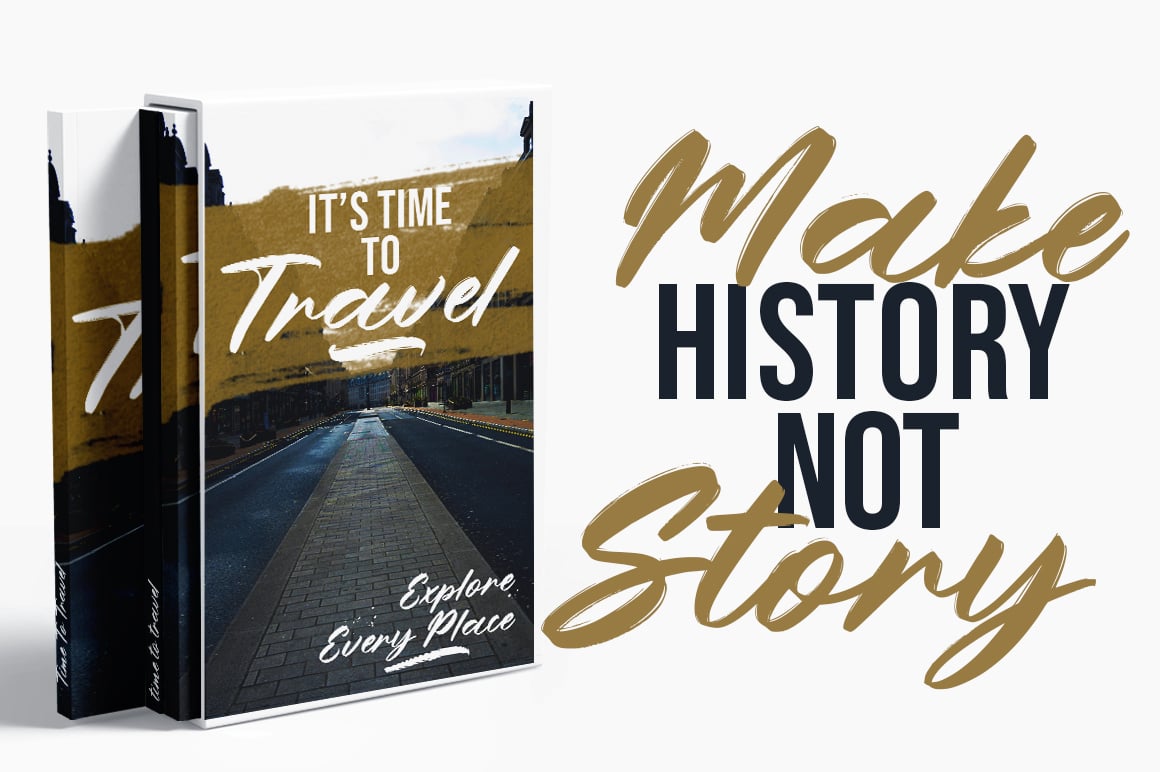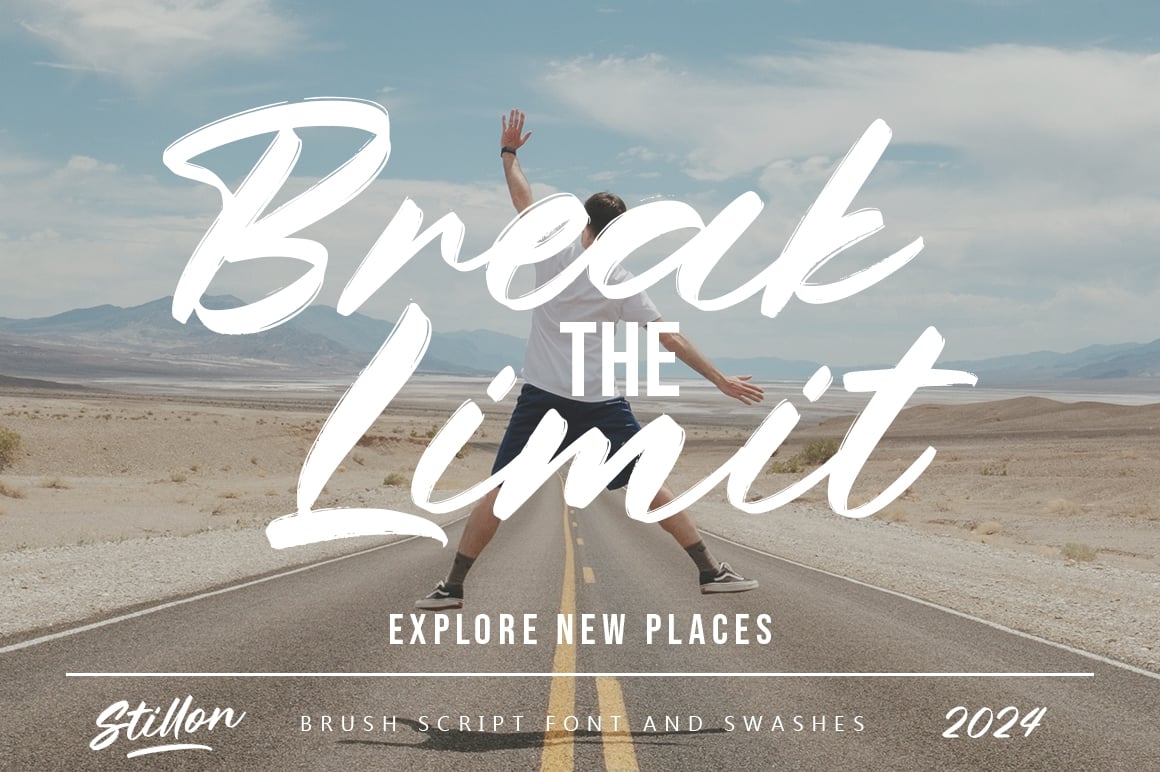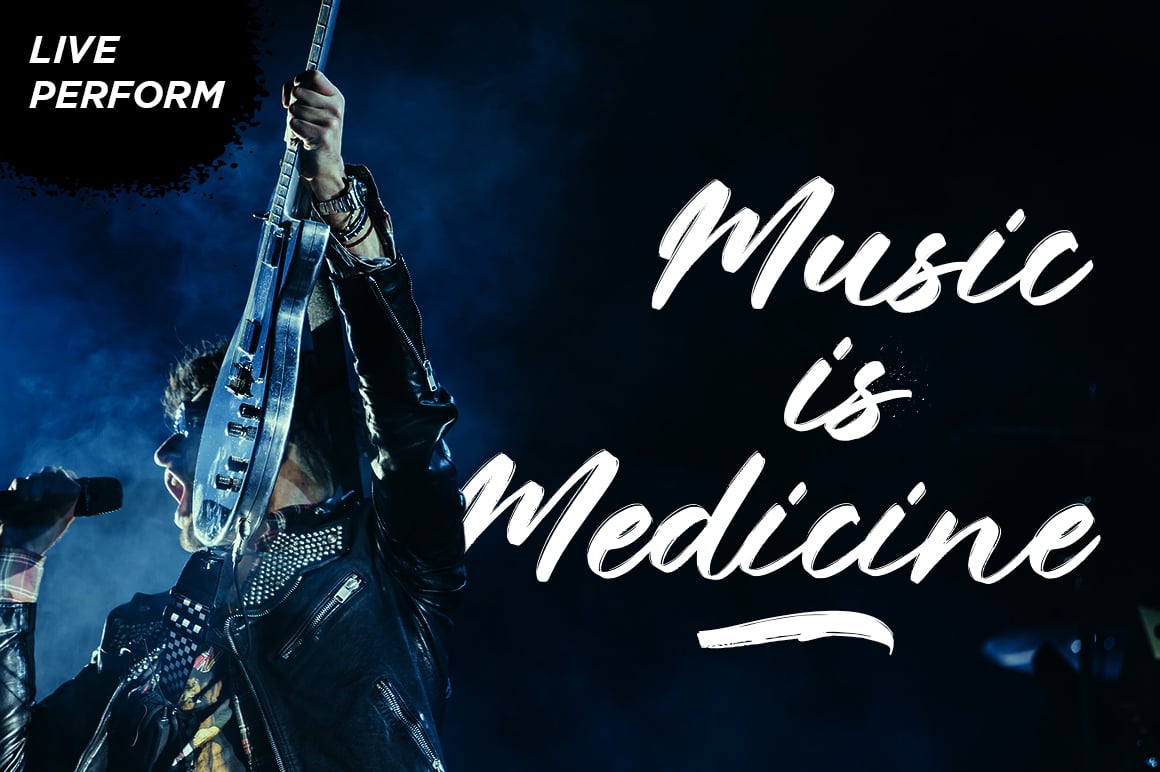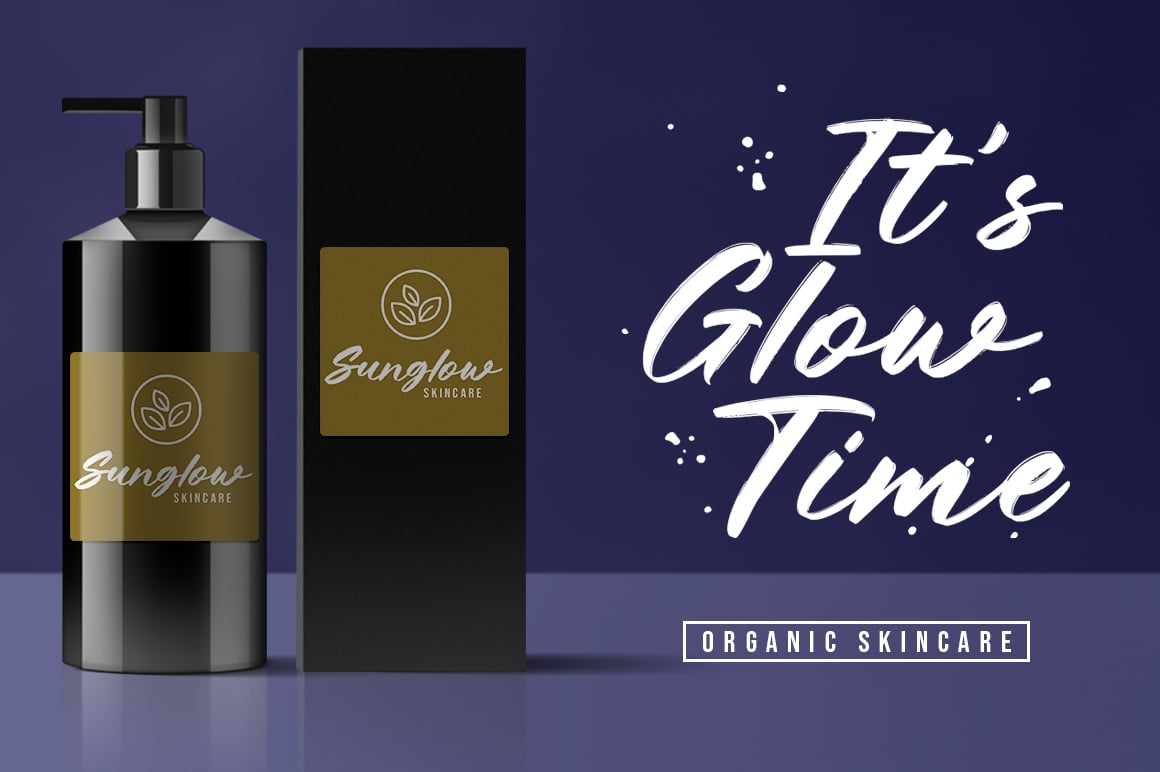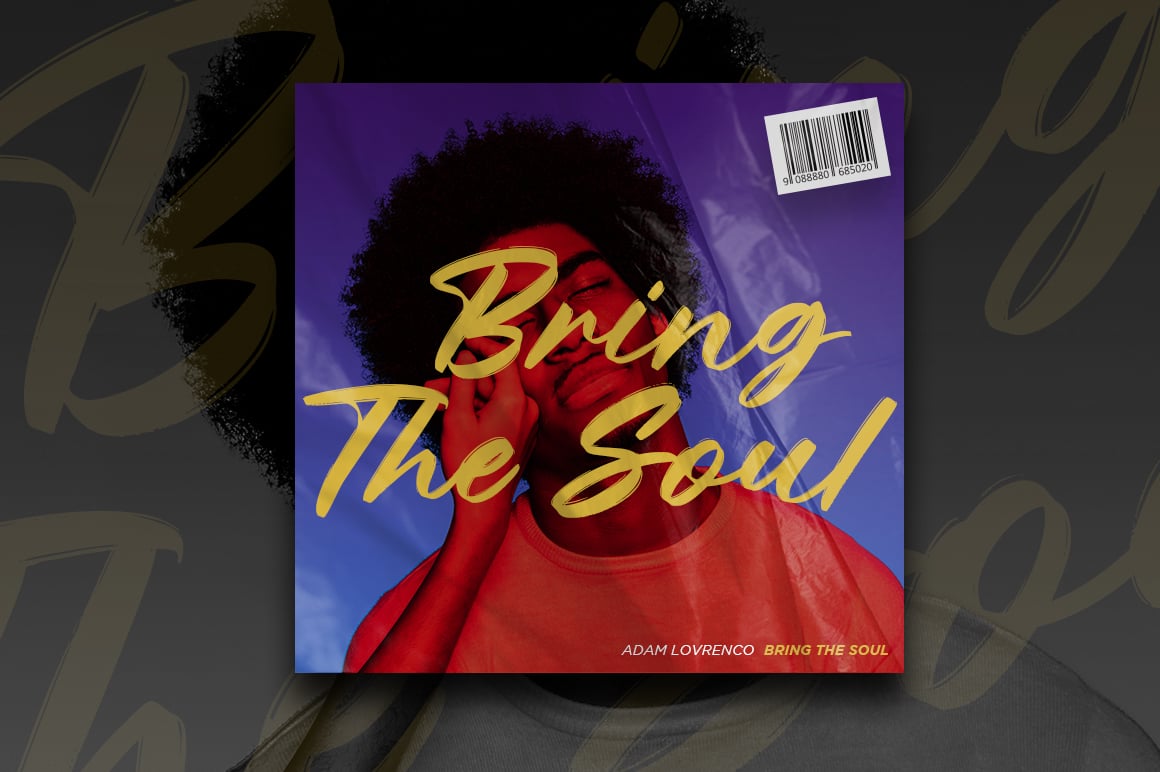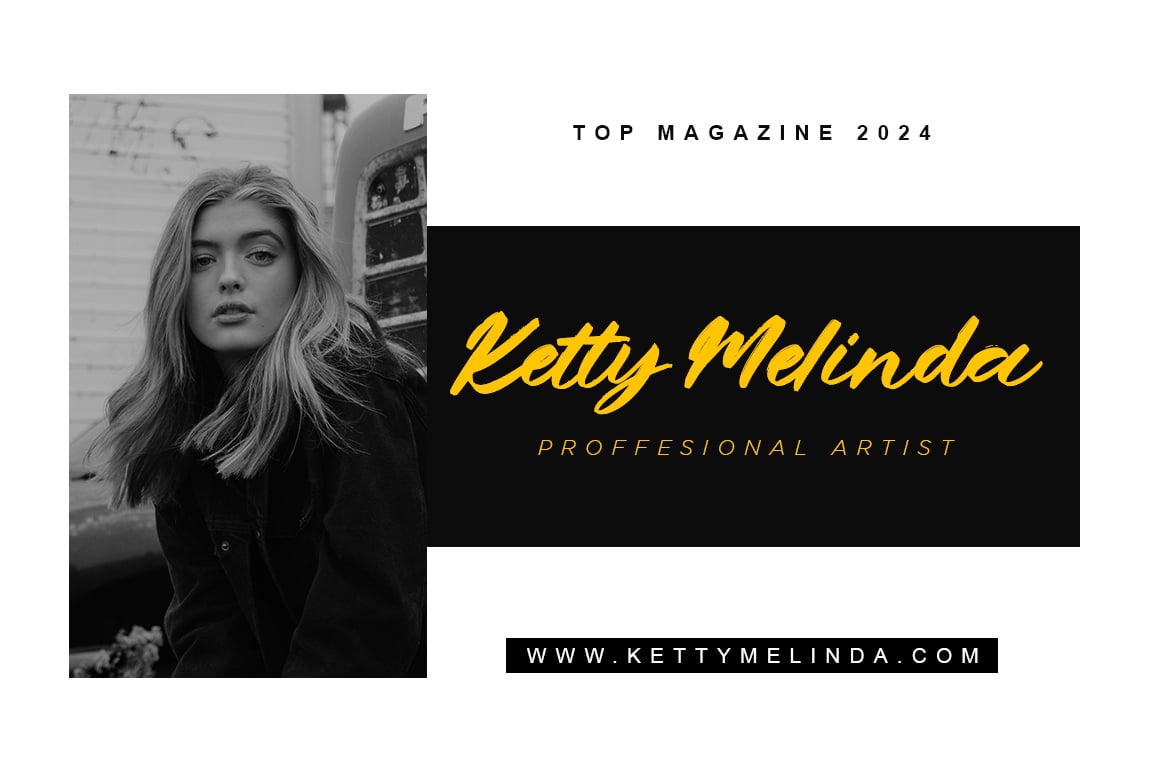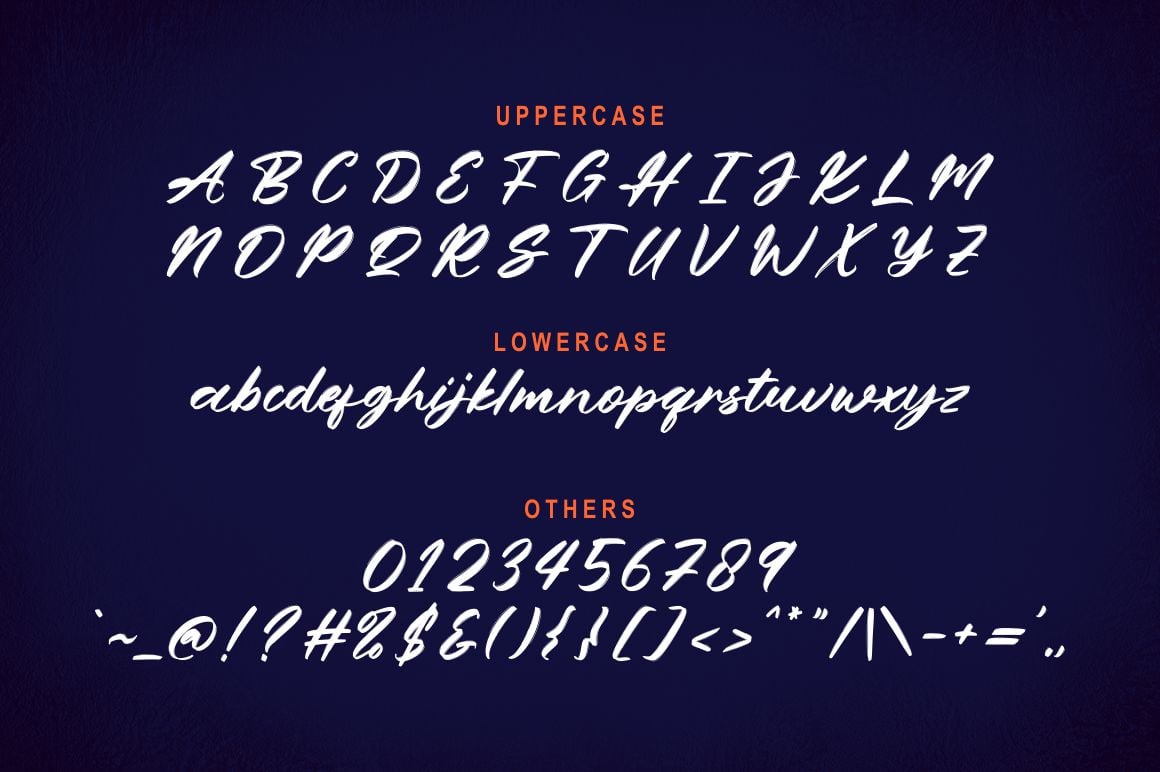
Stillon Brush Font
Stillon is textured brush font, contemporary approach to design, handmade natural with an irregular baseline. Suitable for use in title design. Such as magazine, invitations, books tittle, stationery design, quotes, branding, logos, greeting card, packaging design, poster and more.
Stillon includes a complete set of uppercase and lowercase letters, as well as multi-language support, numbers, punctuation and swashes.